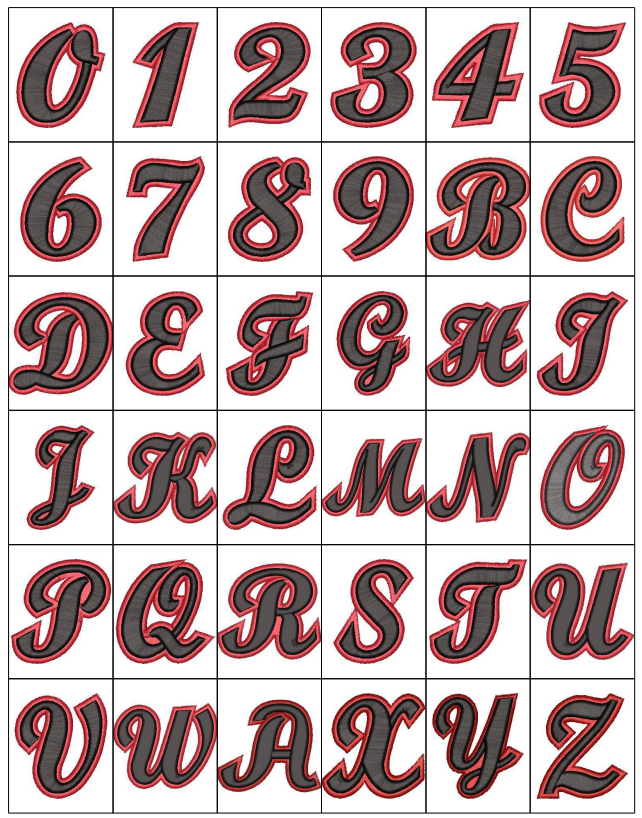
3D Foam Script Font 2 ColorMachine Embroidery Design
About This Font Collection
This is a complete uppercase alphabet (A-Z) digitized for 3D puff foam embroidery. Each letter is supplied as an individual design file, ready to embroider on caps, jackets, and other puff-foam applications.